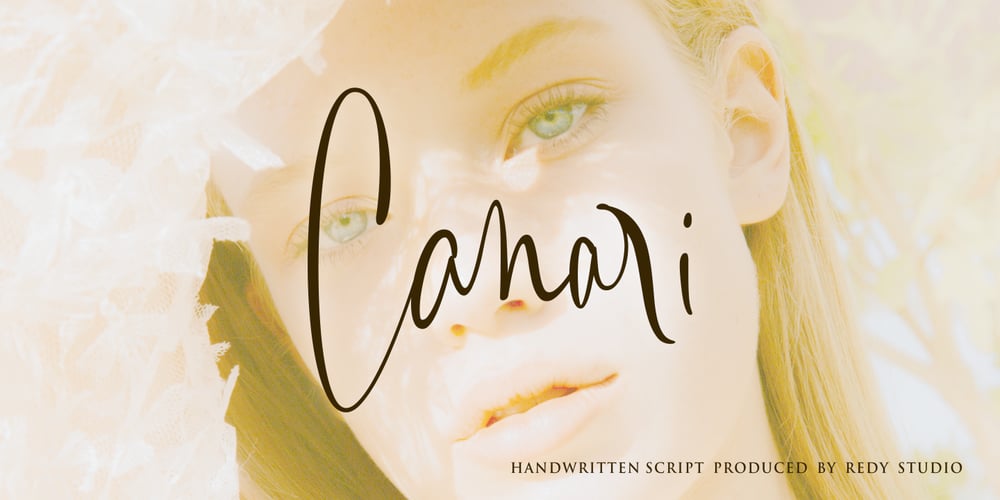
Canari Script
Canari Script font
Canari Script Font Family was designed by Nurul Fajri Redy and published by Redy Studio. Canari Script contains 1 styles and family package options. Canari – Modern Calligraphy FontsCanari, modern calligraphy font is of great interest to all graphic designers and die-hard fans of handwriting. Canari comes with 105 extravagant ligatures, so you can give your work the personal touch it deserves. It is great for expressive projects such as using it for a logo design, wedding invitation design, social media headers, product packaging, and much more! If you are looking for a condensed font that is perfect for use as social media headers or logos then Canari would definitely be the perfect choice for you. Just take a look at this example above and you will definitely fall in love with this font!Canari features: A full set of upper & lowercase characters Numbers & punctuation 105 Extravagant ligatures Multilingual symbols PUA Encoded Characters – Fully accessible without additional design software. Feel free to give me a message if you have a problem or question. Thank you so much for taking the time to look at one of our products.